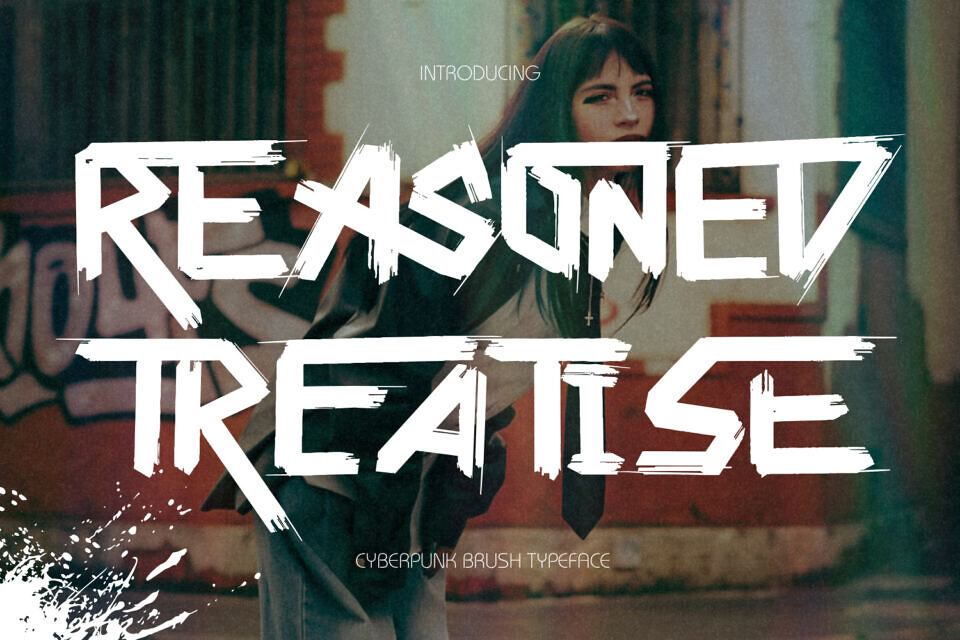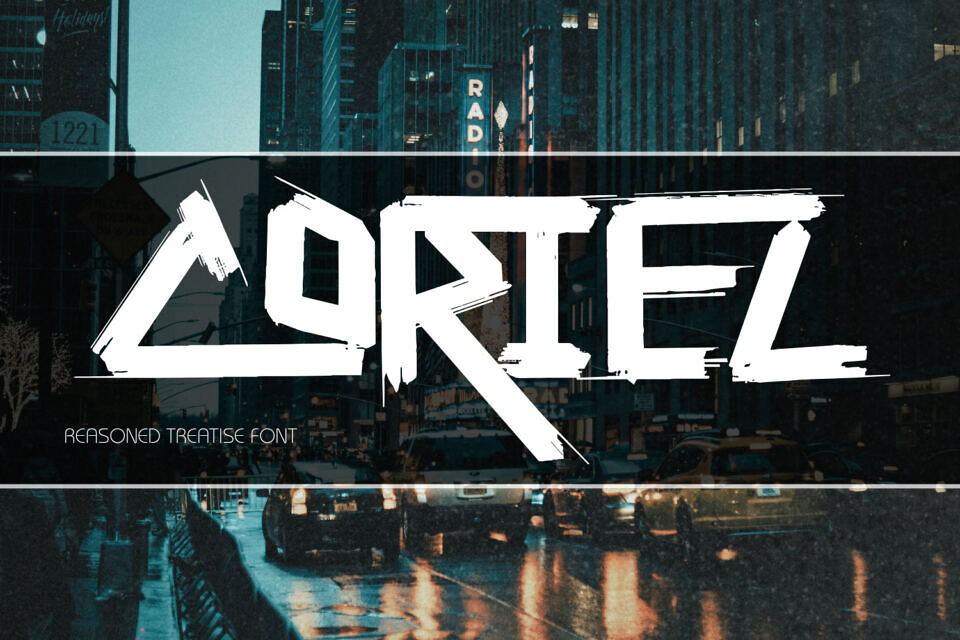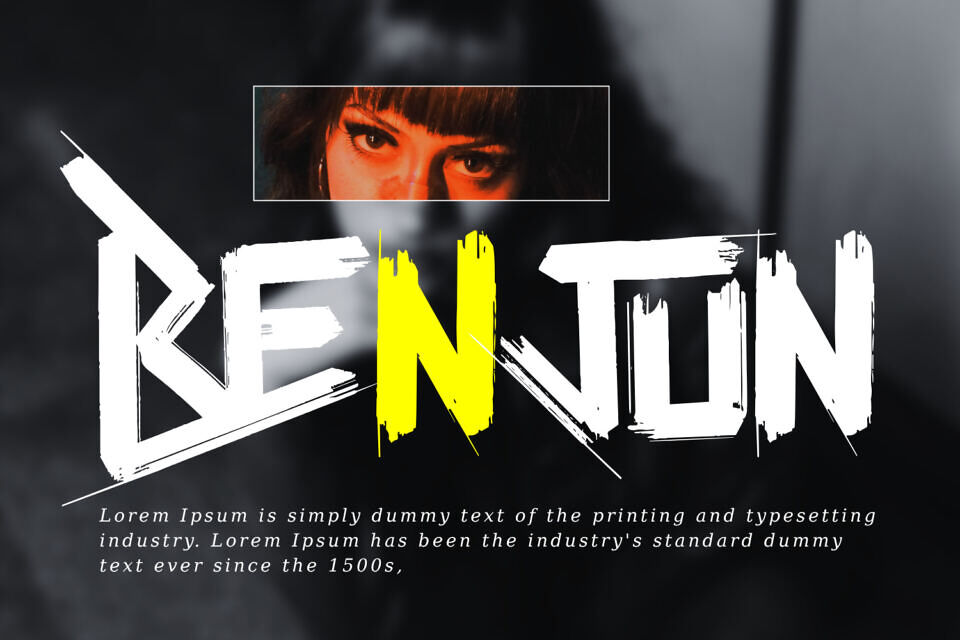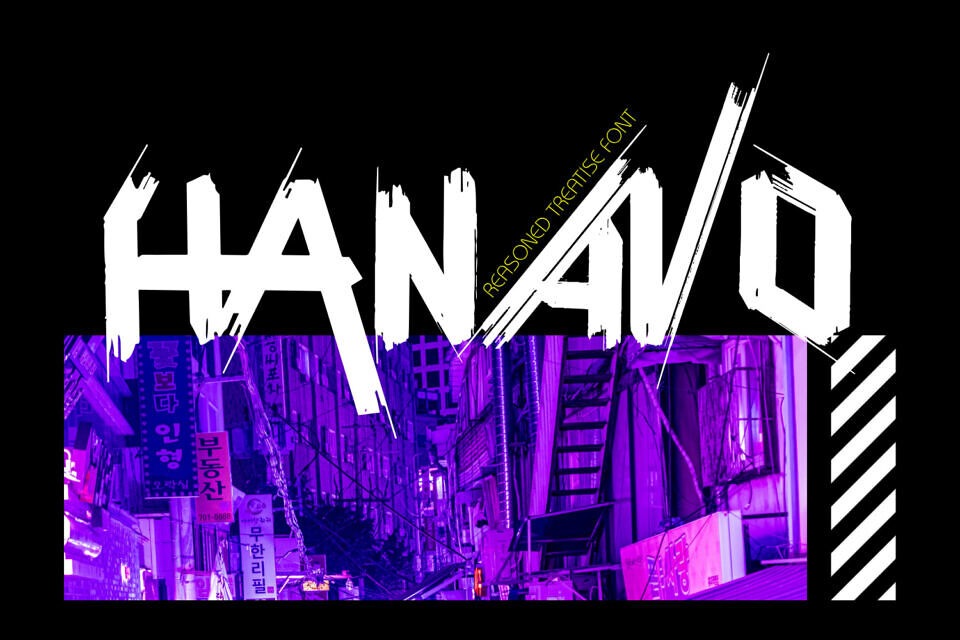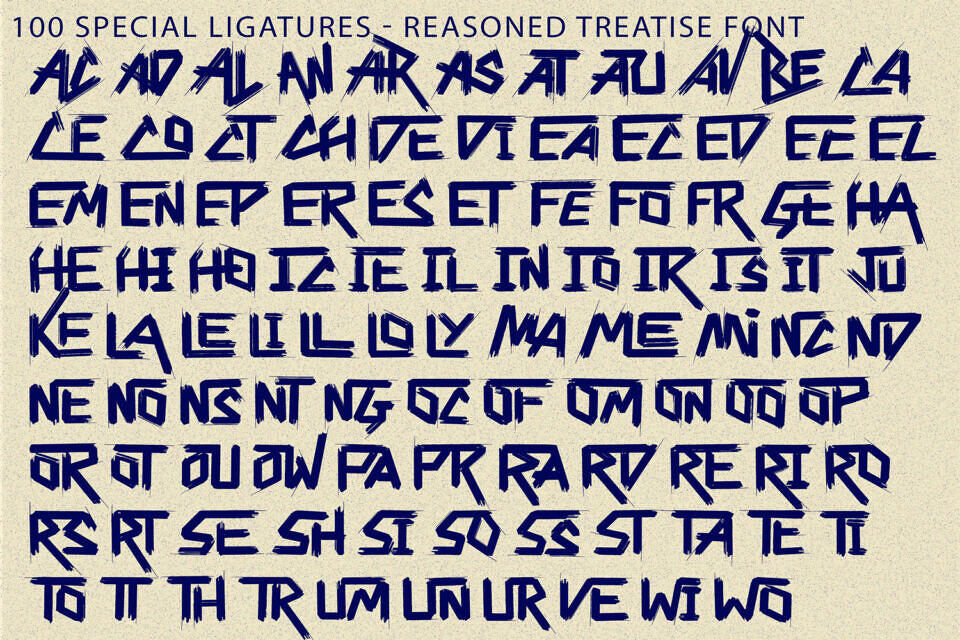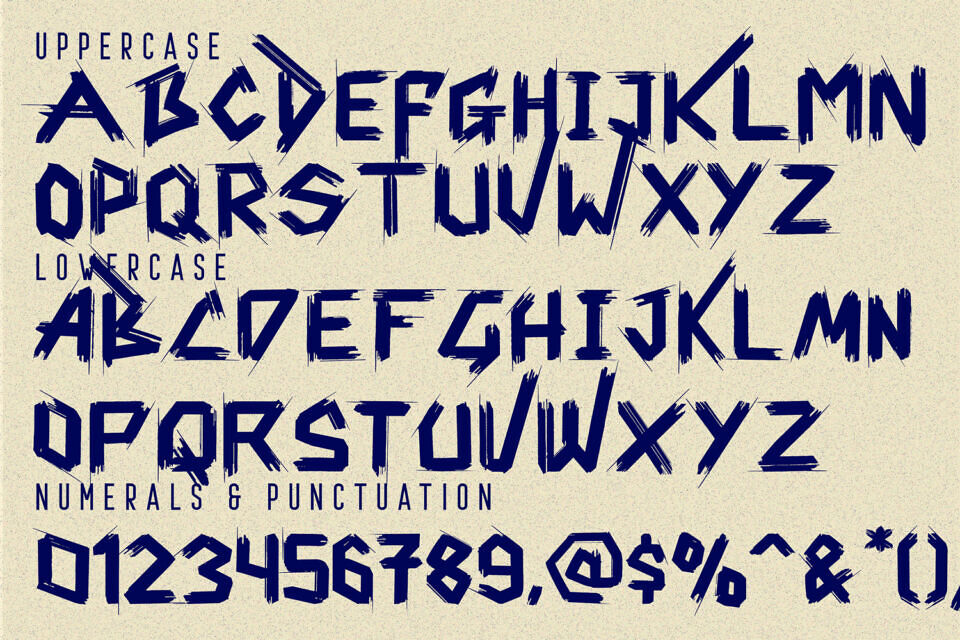
Reasoned Treatise Font
Reasoned Treatise is a bold grunge brush display font that captures the raw energy of hand-painted lettering and urban expression. Built on a strong sans-serif foundation, this typeface features rough brush textures, distressed edges, and dynamic strokes that give each character a powerful and organic feel.
With its expressive imperfections and striking visual impact, Reasoned Treatise is perfect for posters, music artwork, streetwear branding, and edgy design projects. The combination of bold structure and painterly details creates a unique balance between readability and artistic chaos.